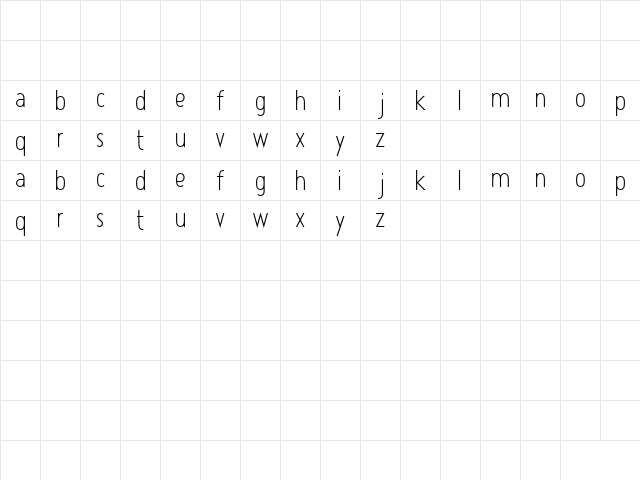
Atype 1 Regular
| Foundry | Salvo Nicolosi |
| Designer | Salvo Nicolosi |
Design Context for Atype 1 Typeface
Atype 1 takes a measured approach to typography — its balanced proportions and neutral character make it a reliable workhorse for both digital and print work.